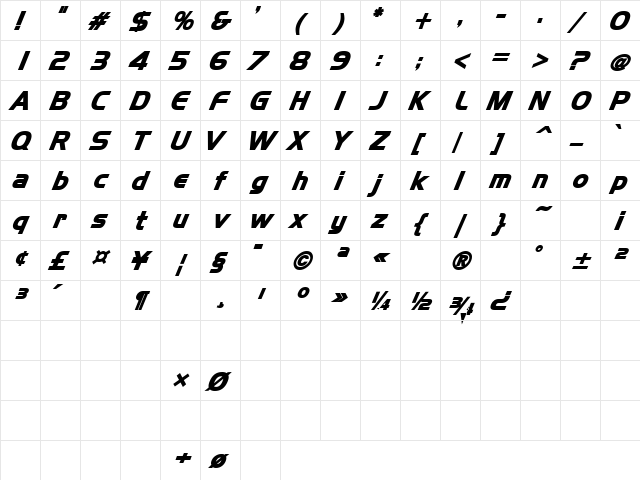
AF PEPSI Regular
Design Context for AF PEPSI Typeface
AF PEPSI offers clean, dependable letterforms without strong stylistic allegiance, making it a practical choice for designers who need flexibility.